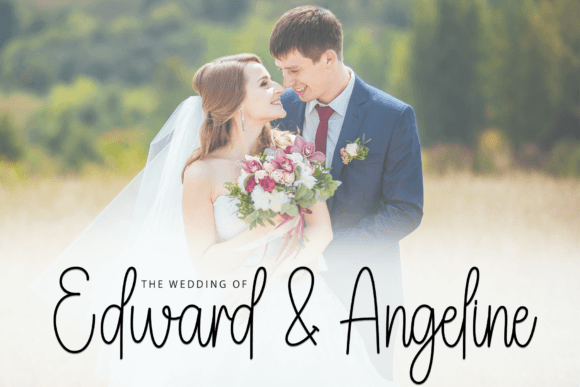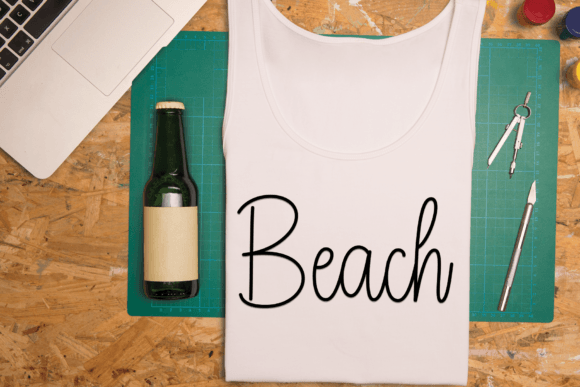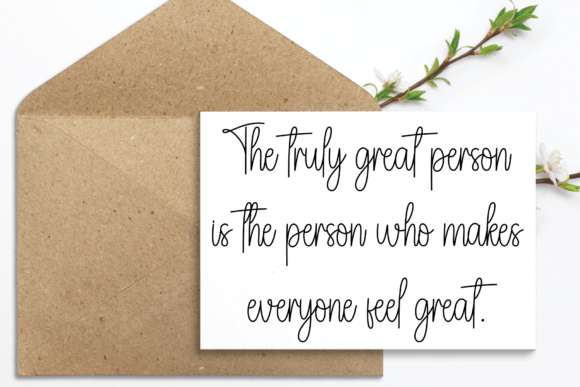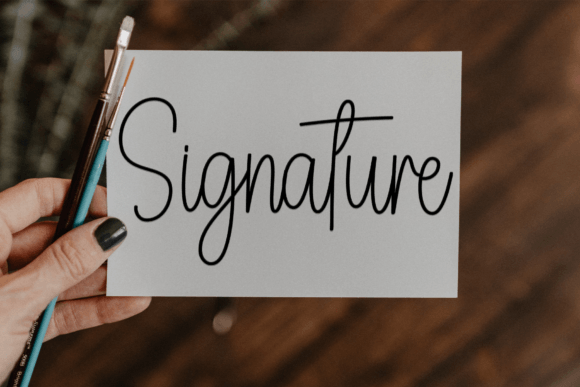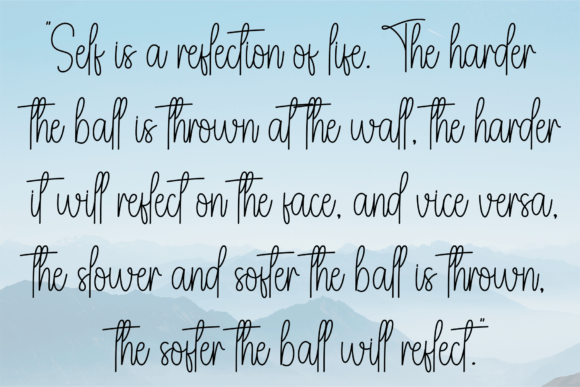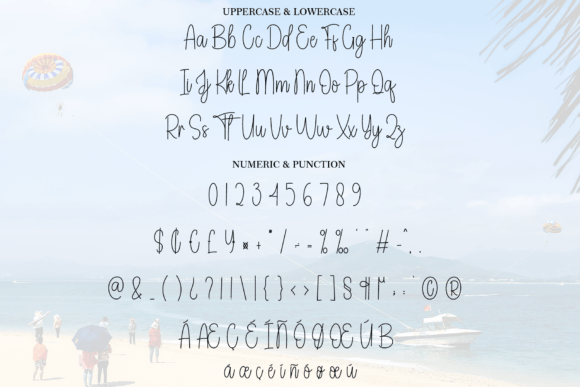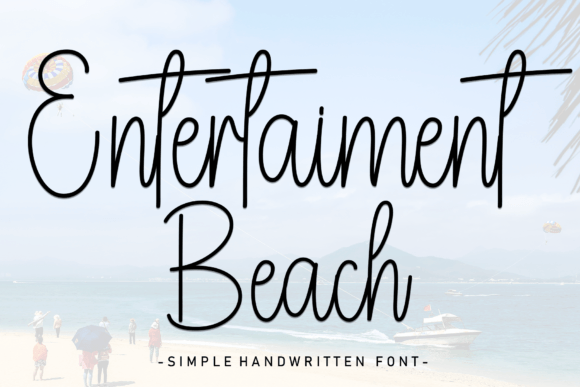
Introducing Entertaiment Beach Font: The Perfect Addition to Your Design Arsenal
Are you tired of using the same old fonts in your designs? Look no further! Entertaiment Beach Font is a sweet and friendly handwritten font that’s sure to add a lovely touch to your creations. In this article, we’ll dive into the features and benefits of this beautiful font, and explore how it can elevate your designs to the next level.
A Fresh and Casual Font for Any Occasion
Entertaiment Beach Font is a fresh and casual font that’s perfect for a variety of design projects. Its handwritten style gives it a personal and approachable feel, making it ideal for writing wedding invitations, cards, or any other design that might need a lovely touch. Whether you’re a designer, crafter, or DIY enthusiast, this font is sure to become a staple in your collection.
Key Features of Entertaiment Beach Font
• Handwritten style: Entertaiment Beach Font has a beautiful, handwritten style that’s perfect for adding a personal touch to your designs.
• Sweet and friendly: This font has a sweet and friendly feel that’s sure to appeal to a wide range of audiences.
• Fresh and casual: Entertaiment Beach Font is perfect for designs that need a fresh and casual vibe, such as wedding invitations, birthday cards, and more.
• Easy to read: Despite its handwritten style, Entertaiment Beach Font is easy to read and understand, making it perfect for body text and headings.
Entertaiment Beach Font is a versatile font that’s perfect for designers and crafters alike. Here are just a few ways you can use this beautiful font in your designs:
• Wedding invitations: Add a personal touch to your wedding invitations with Entertaiment Beach Font. Its sweet and friendly style is perfect for wedding announcements, save-the-dates, and more.
• Cards and stationery: Use Entertaiment Beach Font to create beautiful cards and stationery for any occasion. Its fresh and casual style is perfect for birthday cards, thank-you notes, and more.
• DIY projects: Entertaiment Beach Font is perfect for DIY enthusiasts who love to create their own signs, banners, and decorations. Use it to add a personal touch to your projects and make them stand out.
Tips for Using Entertaiment Beach Font
Here are a few tips for using Entertaiment Beach Font in your designs:
• Pair it with other fonts: Entertaiment Beach Font pairs well with other fonts, such as sans-serif fonts and script fonts. Experiment with different combinations to find the perfect look for your design.
• Use it for headings and body text: Entertaiment Beach Font is easy to read and understand, making it perfect for both headings and body text.
• Add some color: Entertaiment Beach Font looks great with a range of colors, from bright and bold to soft and pastel. Experiment with different colors to find the perfect look for your design.
Entertaiment Beach Font is a beautiful and versatile font that’s perfect for designers and crafters alike. Its sweet and friendly style, combined with its fresh and casual vibe, make it ideal for a wide range of design projects. Whether you’re creating wedding invitations, cards, or DIY projects, Entertaiment Beach Font is sure to become a staple in your collection. So why wait? Download Entertaiment Beach Font today and start adding a lovely touch to your designs!